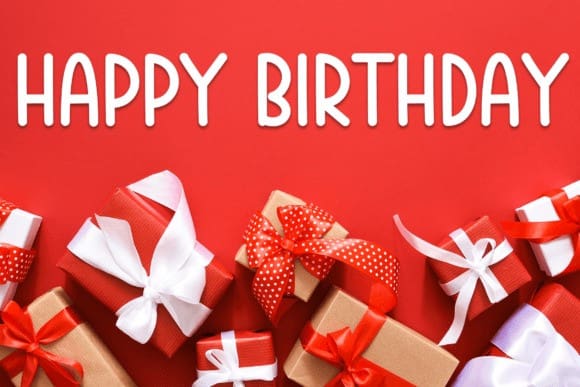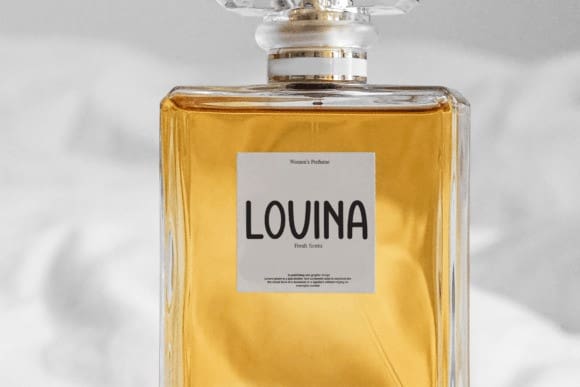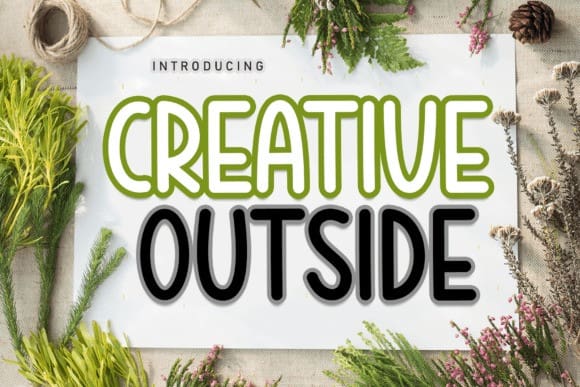
Creative Outside Font
Creative Outside Font is a sweet and friendly handwritten font. Fresh and cute, this font is ideal for writing wedding invitations, cards, or any other design that might need a fun touch!